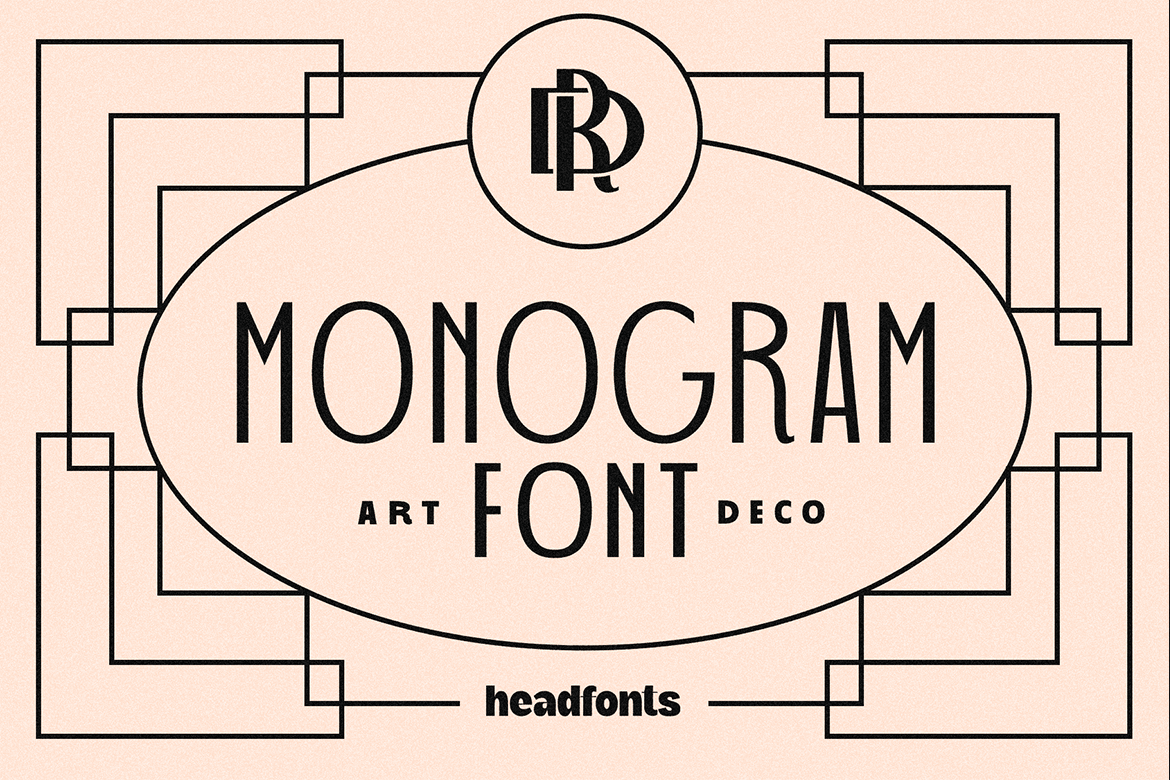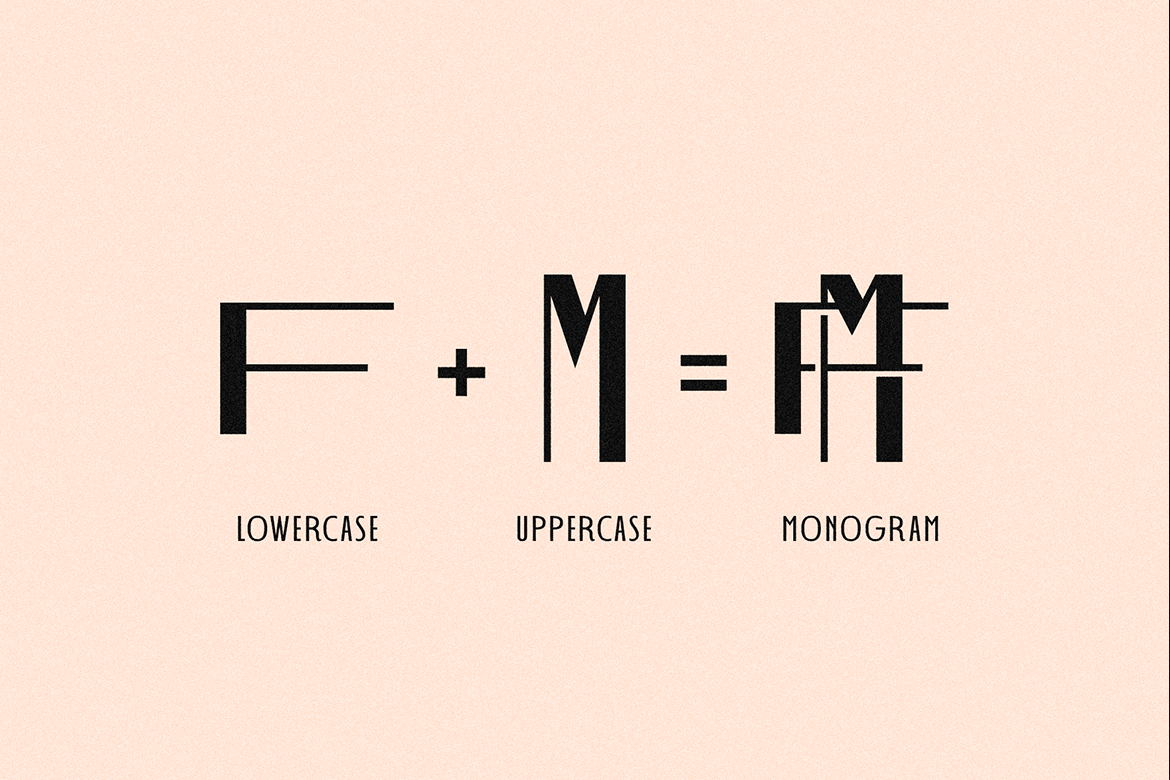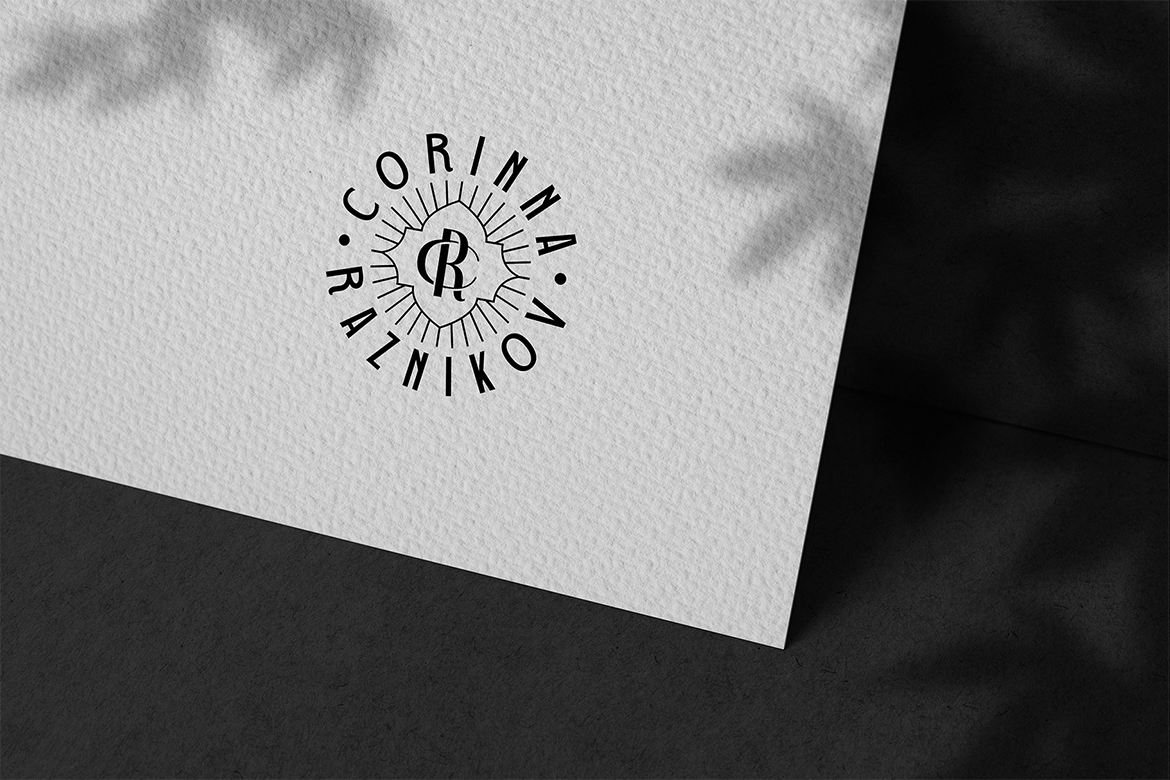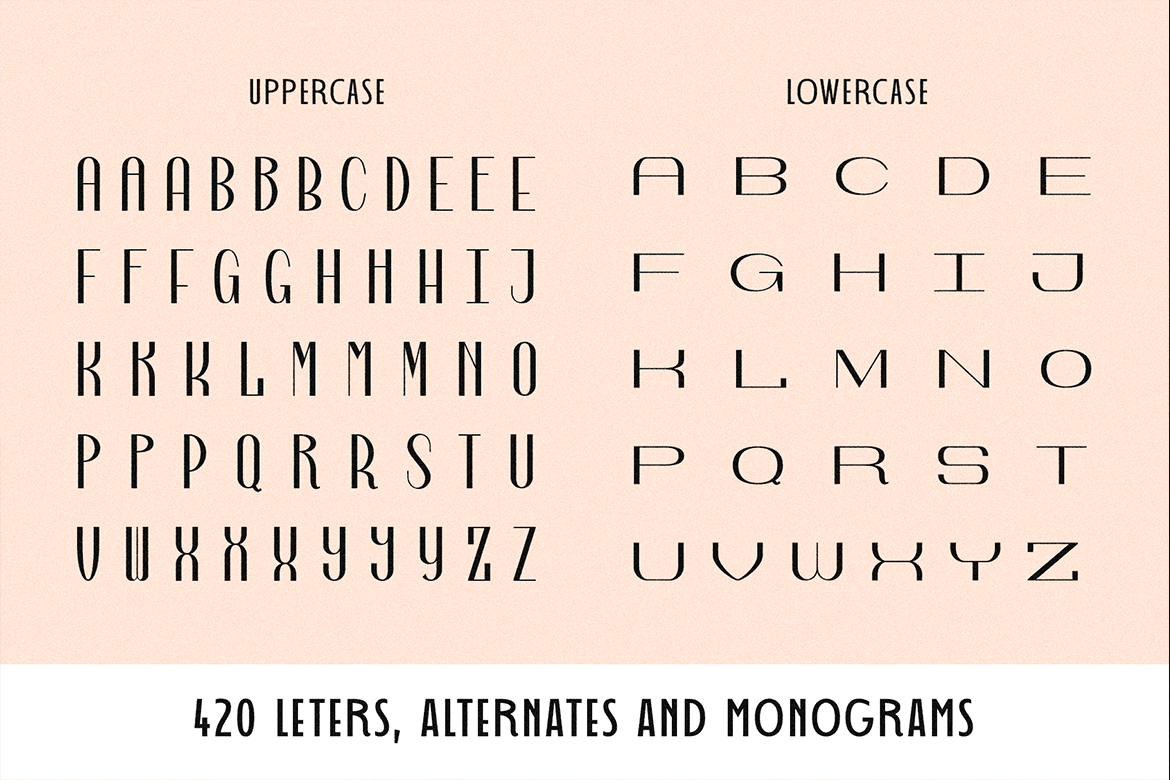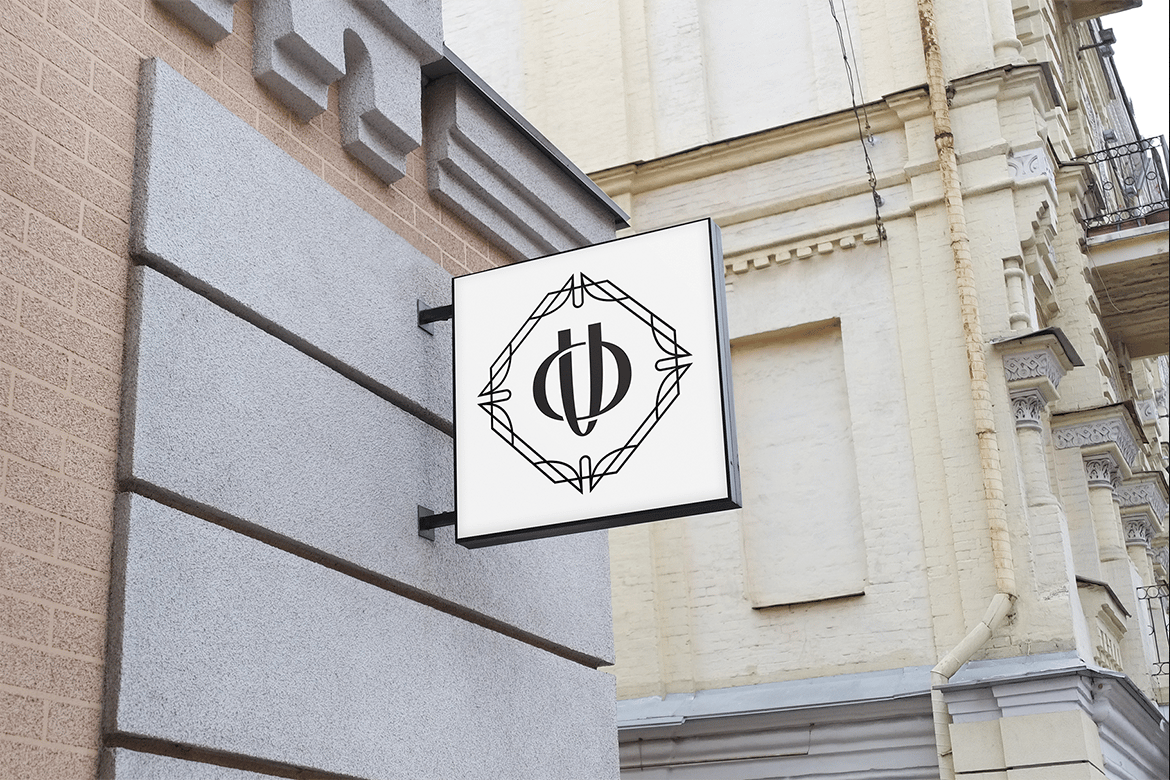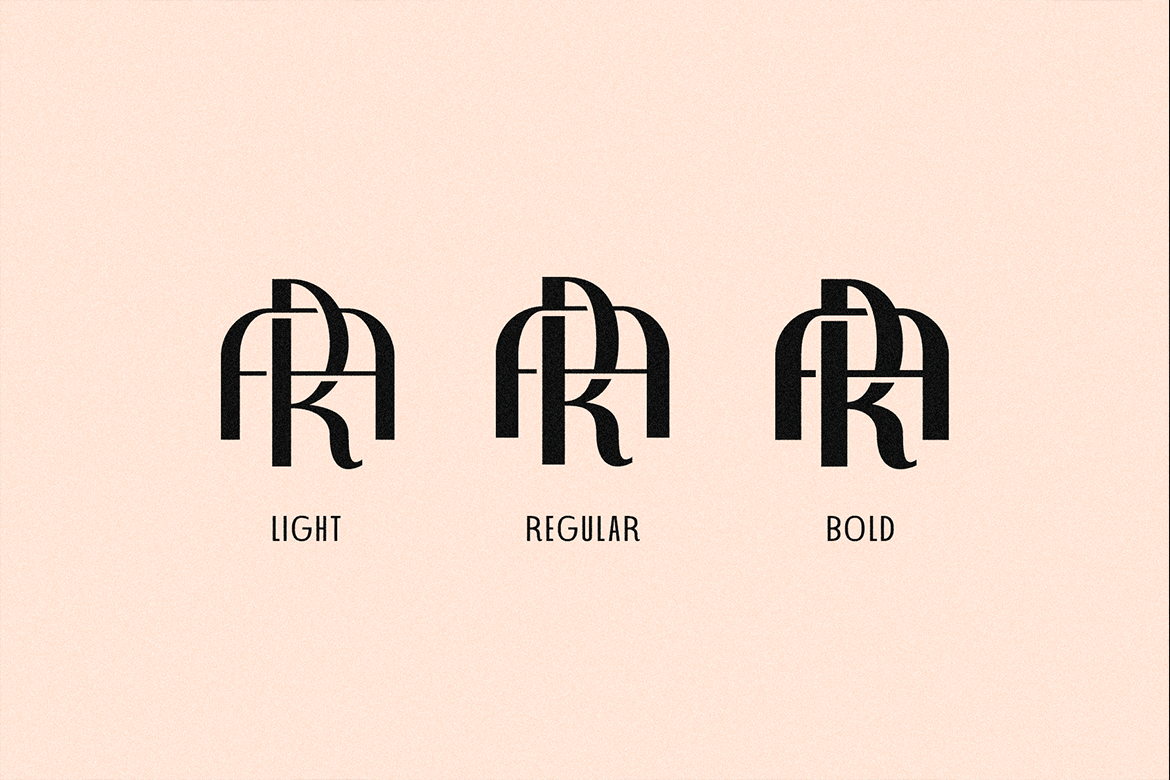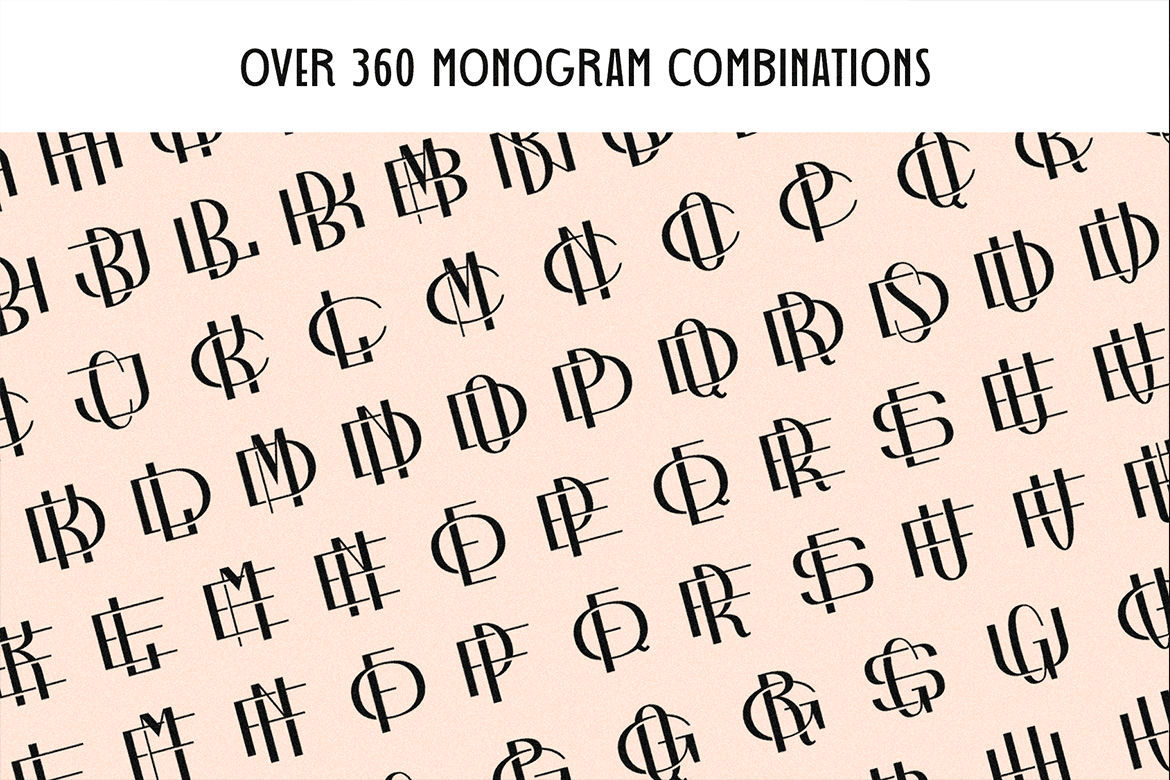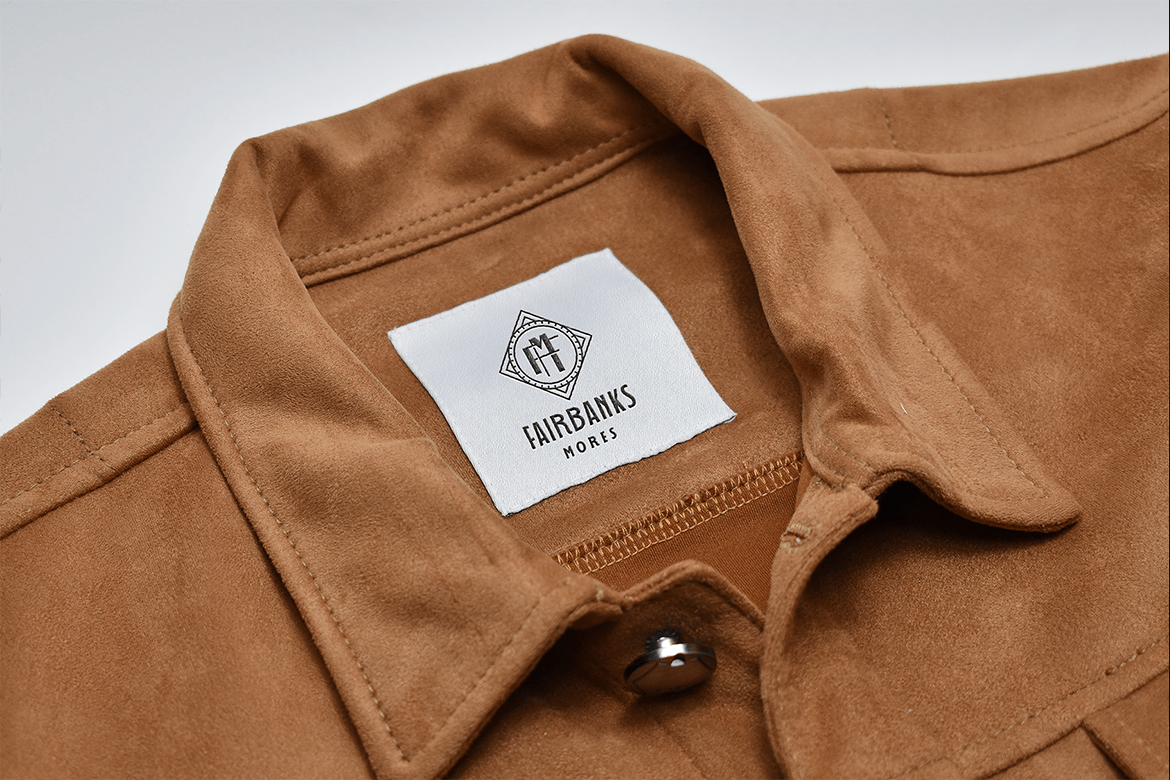
Art Deco Monogram Font
Art Deco Monogram Font is a sans serif font specially designed for creating stunning monograms in no time. Art Deco Monogram Font includes three weights, light, regular and bold with uppercase and lower uppercase characters. This font has endless combinations. Each letter was designed to perfectly combine with the others easily and with great results. The uppercase letters are tall and narrow, while the lower uppercase letters are wider and short-bodied. For a successful monogram, you simply have to choose an uppercase letter and a lower uppercase letter, place them on top of each other and adjust them to have the same center, or just use the existing monograms in this font. Each font contains over 360 combinations of monograms, letters, and alternates.